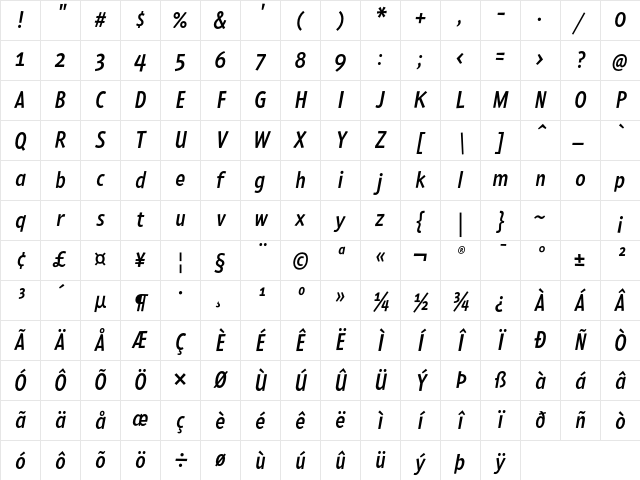
PedestriaMVB-Medium Italic
PedestriaMVB-Medium Family
Design Context for PedestriaMVB-Medium
PedestriaMVB-Medium is a composed and adaptable typeface that performs quietly and consistently across a wide range of design contexts. The slanted form adds forward momentum and visual energy.